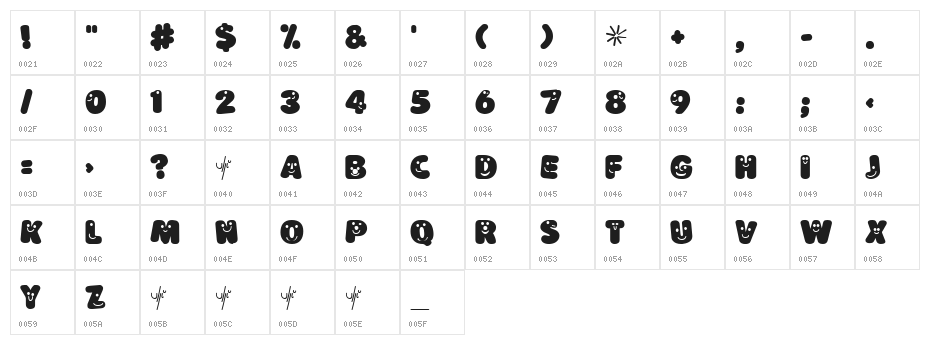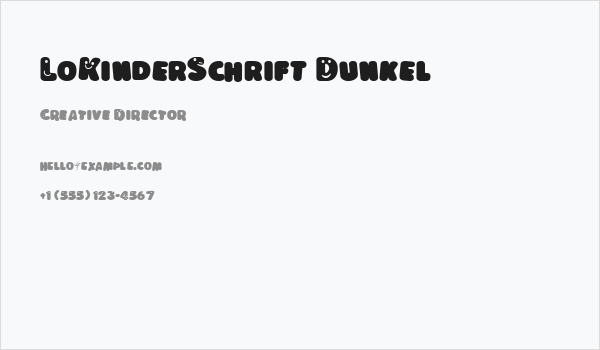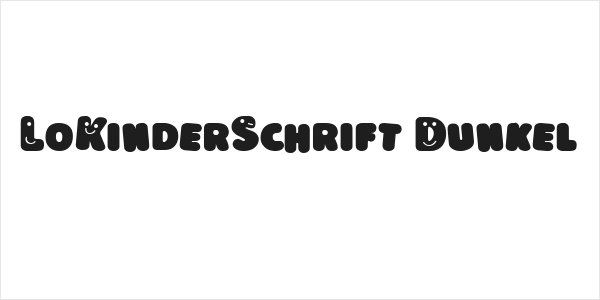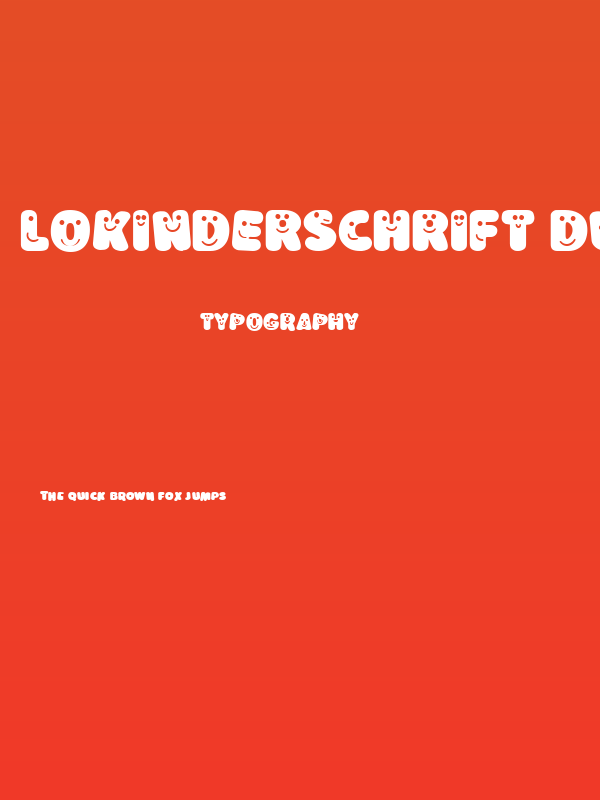
LoKinderSchrift Dunkel Font
LoKinderSchrift Dunkel Description
This playful and whimsical font features bold, rounded characters with a unique twist. Each letter and number is adorned with small, cheerful eyes, giving the font a lively and animated personality. The characters are thick and substantial, creating a strong visual impact. The design is consistent across both uppercase and lowercase letters, as well as numbers and special characters, maintaining a cohesive and fun appearance. The font's style is perfect for projects that require a touch of humor and creativity, making it ideal for children's materials, playful branding, and eye-catching headlines.
| Use Case | Headlines, Children's materials, Branding |
| Proposed Projects | Ideal for children's books, playful branding, party invitations, and eye-catching headlines. |